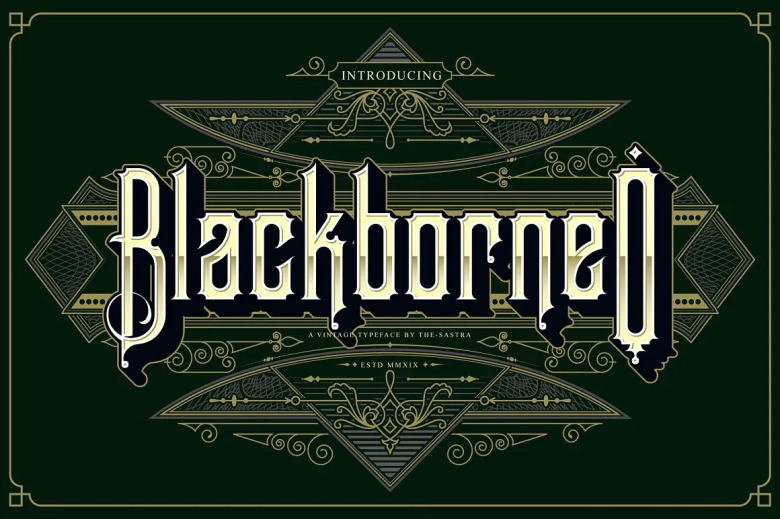
Blackborneo Font
Black Borneo is a riclyake and boky display backletter font barling with fersonality. Giving it a modern edge on its classic look, this font will become your easy go to in the typeface for any design.
Blackborneo Blackletter Font